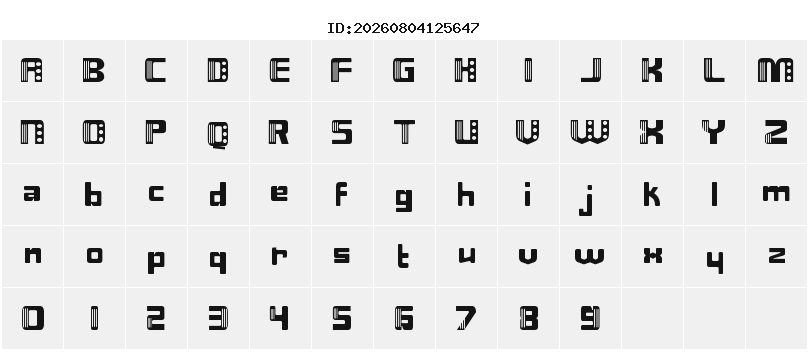
Nix Preview
• Font Name: Nix
• Font ID: Nix:Version 1.00
• Full Font Name: Nix
• Version: Version 1.00 July 6, 2012, initial release
• PostScript Name: Nix
• Designer: Matias Romero
About Nix.ttf
Nix.ttf is a modern, elegant sans-serif font designed for ultimate readability and visual harmony. Perfect for branding, headlines, web design, and print materials.